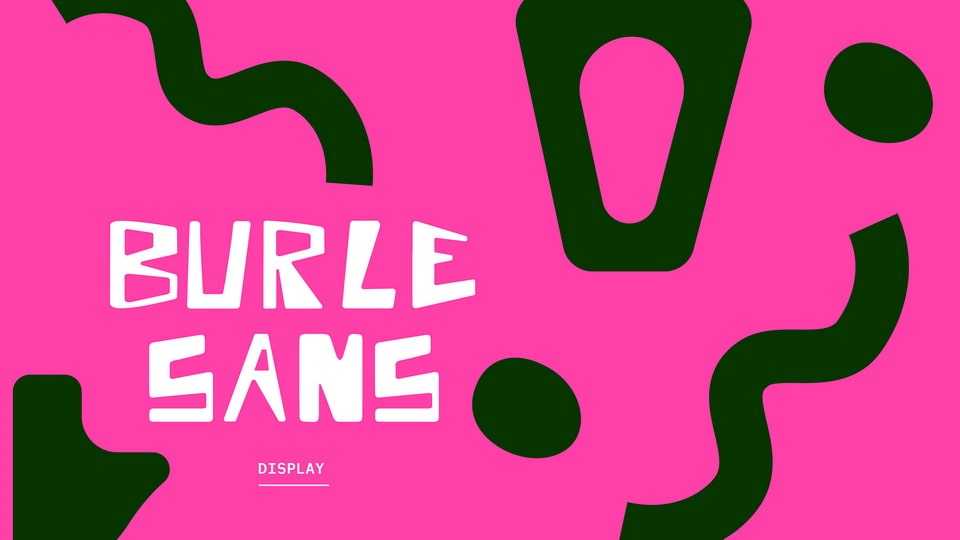
Download Burle Sans font, a geometric typeface inspired by the work of R. Burle Marx, a Brazilian landscape designer famous for his distinctive style.
Designer: William Terra